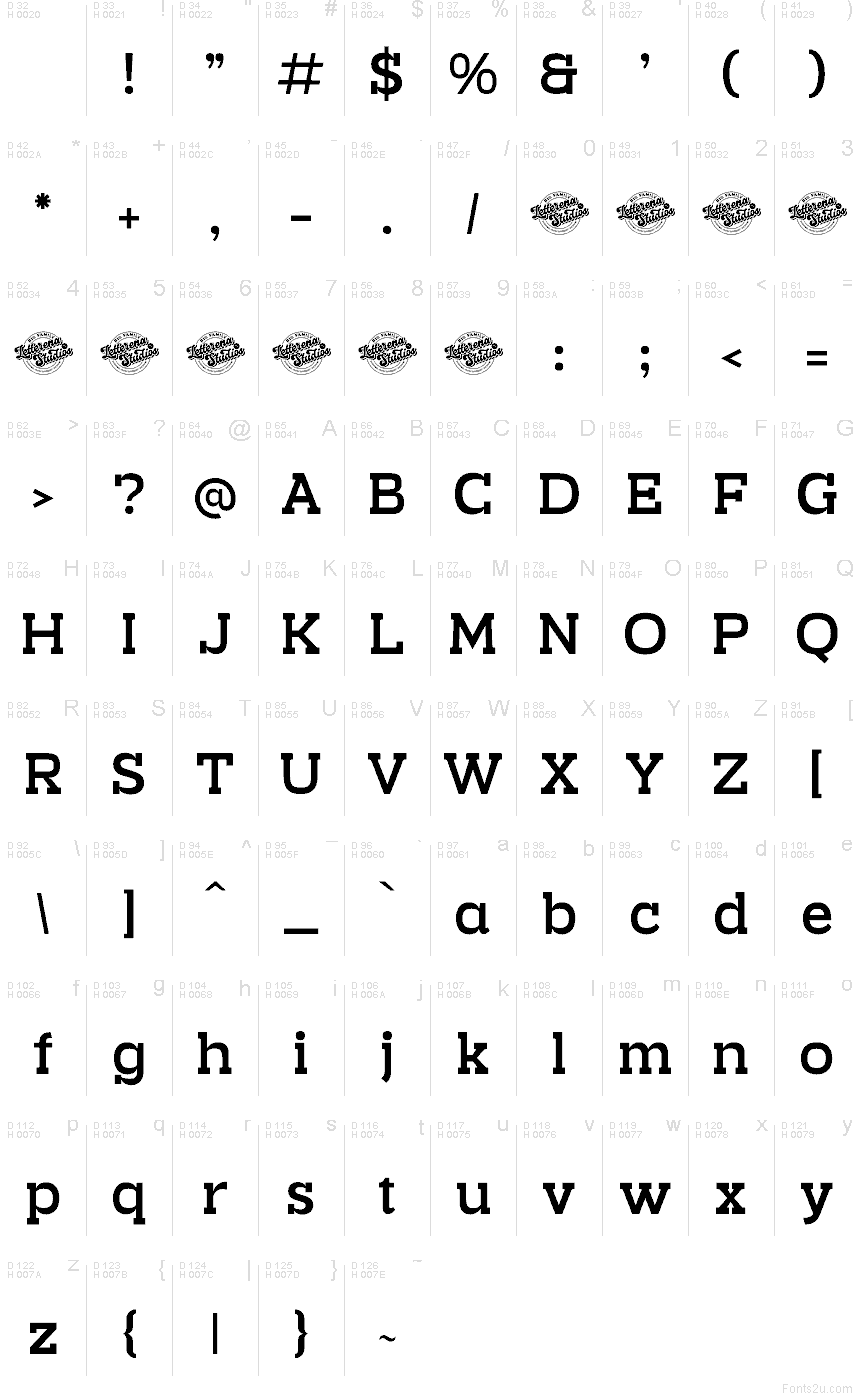
Burgela DEMO VERSION
Burgela font by Letterena Studios is a free serif typeface that hits a rare sweet spot between sturdy structure and approachable warmth. Its chunky verticals, gently rounded curves, and compact spacing give every word a confident, grounded feel, while the soft corners keep it from feeling stiff or corporate. The result is text that reads as strong and trustworthy, but still human and inviting.
Using Burgela, headlines feel bold and steady, logos gain a solid backbone, and packaging or posters carry a reassuring weight. This free font works beautifully for branding, editorial covers, restaurant menus, product labels, and bold social graphics. Pair Burgela with a clean geometric sans for smaller copy, and let Burgela handle the larger sizes where its dense, inky forms can really stand out.